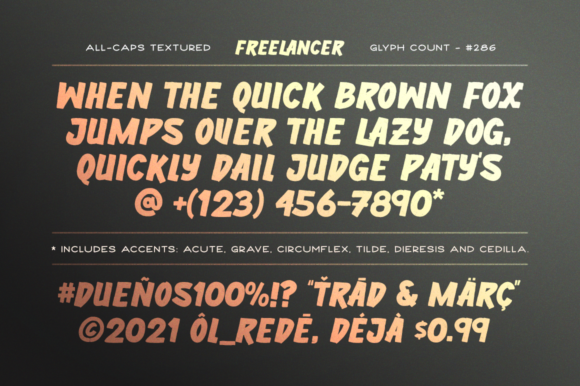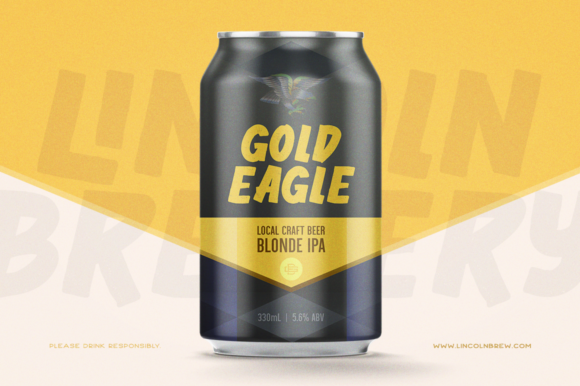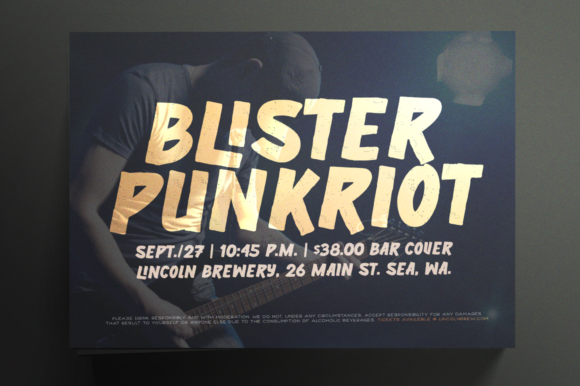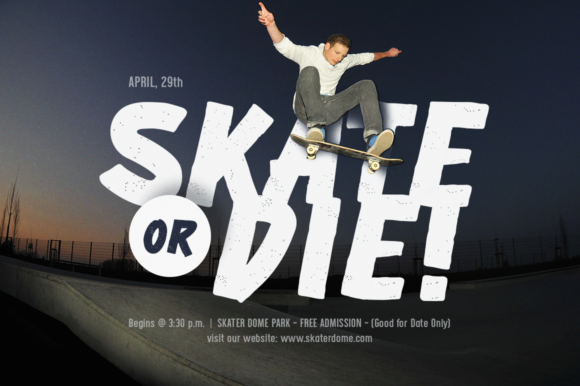
Unleash Your Creativity with Freelancer Font: A Bold Textured Display Font
Are you a designer, crafter, or creative looking for a font that embodies the spirit of modernity and coolness? Look no further than the Freelancer Font, a bold textured display font that is full of life and energy. In this article, we’ll dive into the world of Freelancer Font, exploring its unique features, benefits, and uses, and why it’s a must-have for any creative project.
What is Freelancer Font?
Freelancer Font is a contemporary display font that boasts a bold, textured design that’s perfect for making a statement. Its unique blend of modernity and edginess makes it an ideal choice for designers and crafters looking to add a touch of coolness to their projects. Whether you’re working on a logo, branding, or marketing materials, Freelancer Font is sure to turn heads.
Key Features of Freelancer Font
- Bold and Textured Design: Freelancer Font features a bold, textured design that’s perfect for creating eye-catching headlines and titles.
- Contemporary Coolness: The font’s modern and edgy design makes it perfect for projects that require a touch of coolness and sophistication.
- Highly Versatile: Freelancer Font can be used for a wide range of projects, from logos and branding to marketing materials and packaging.
- Easily Readable: Despite its bold and textured design, Freelancer Font is surprisingly easy to read, making it perfect for use in a variety of contexts.
Benefits of Using Freelancer Font
- Adds a Touch of Modernity: Freelancer Font’s contemporary design makes it perfect for projects that require a modern and fresh feel.
- Stand Out from the Crowd: The font’s bold and textured design ensures that your project will stand out from the crowd and grab attention.
- Perfect for Creative Projects: Freelancer Font is ideal for creative projects, such as logos, branding, and marketing materials, where a bold and eye-catching design is essential.
How to Use Freelancer Font
- Pair with a Simple Font: Pair Freelancer Font with a simple font to create a striking contrast and add visual interest to your project.
- Use for Headlines and Titles: Freelancer Font is perfect for use in headlines and titles, where its bold and textured design can really make an impact.
- Experiment with Colors: Don’t be afraid to experiment with different colors and textures to really make Freelancer Font pop.
Who is Freelancer Font for?
Freelancer Font is perfect for:
- Designers: Freelance designers, design agencies, and in-house design teams will love Freelancer Font’s bold and textured design.
- Crafters: Crafters and makers will appreciate Freelancer Font’s unique and eye-catching design.
- Marketing and Advertising Professionals: Marketing and advertising professionals will love Freelancer Font’s ability to grab attention and make a statement.